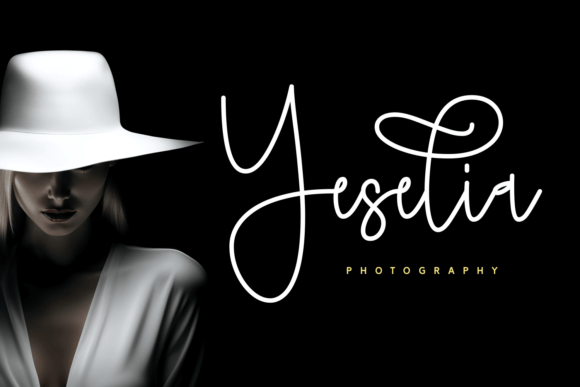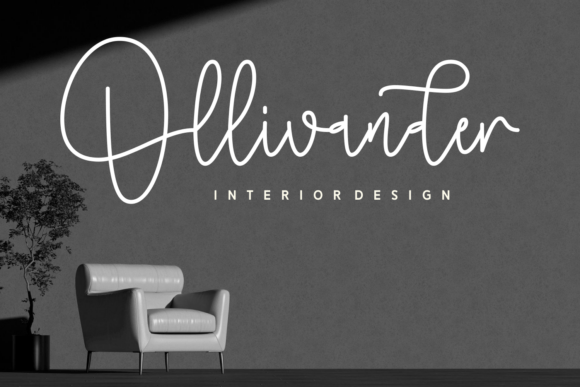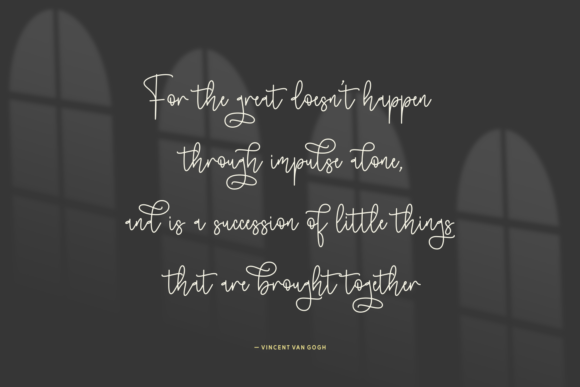
Dhalia Script Font: Elevate Your Designs with Elegance and Sophistication
In the world of typography, a well-chosen font can make all the difference in elevating your design to new heights. For designers and crafters seeking a refined and modern calligraphy font, look no further than Dhalia Script. This exquisite font boasts a unique blend of elegance, minimalism, and sophistication, making it the perfect choice for luxury branding, wedding invitations, social media content, and other high-end design projects.
The Essence of Dhalia Script
Dhalia Script is a masterfully crafted font that exudes refinement and poise. Its thin strokes and smooth flow create a sense of fluidity, giving your designs a luxurious feel that’s sure to captivate your audience. Whether you’re working on a wedding invitation, a fashion brand’s logo, or a social media post, Dhalia Script’s elegant aesthetic will add a touch of class and sophistication to your creation.
Key Features of Dhalia Script
- Refined and minimalist design: Dhalia Script’s clean lines and simple strokes make it a versatile font that works well in a variety of design contexts.
- Elegant, thin strokes: The font’s delicate strokes create a sense of luxury and sophistication, perfect for high-end design projects.
- Smooth flow: Dhalia Script’s fluid motion makes it easy to read and visually appealing.
- Modern twist: This font’s contemporary take on traditional calligraphy sets it apart from more ornate and over-the-top scripts.
Perfect for Luxury Branding and High-End Designs
Dhalia Script’s sophisticated aesthetic makes it an ideal choice for luxury branding and high-end design projects. Its refined elegance will elevate your brand’s visual identity, setting you apart from the competition. Use Dhalia Script to create:
- Luxury logos: Establish your brand’s high-end identity with a custom logo featuring Dhalia Script.
- Wedding invitations: Make your special day unforgettable with elegant wedding invitations that showcase Dhalia Script’s refined beauty.
- Social media content: Elevate your social media presence with stylish posts and stories that feature Dhalia Script’s modern sophistication.
Why Choose Dhalia Script?
With so many fonts to choose from, why select Dhalia Script for your design projects? Here are just a few compelling reasons:
- Versatility: Dhalia Script’s clean yet sophisticated aesthetic makes it suitable for a wide range of design applications.
- Elegance: This font’s refined, minimalist design ensures that your creations will exude luxury and sophistication.
- Creativity: Dhalia Script’s modern twist on traditional calligraphy gives you the freedom to experiment and push the boundaries of your designs.
Dhalia Script Font is a game-changer for designers and crafters seeking to elevate their designs with elegance and sophistication. Its refined, minimalist calligraphy and modern twist make it the perfect choice for luxury branding, wedding invitations, social media content, and other high-end design projects. With Dhalia Script, you’ll be able to add a touch of class and creativity to any creation, setting you apart from the competition and leaving a lasting impression on your audience.